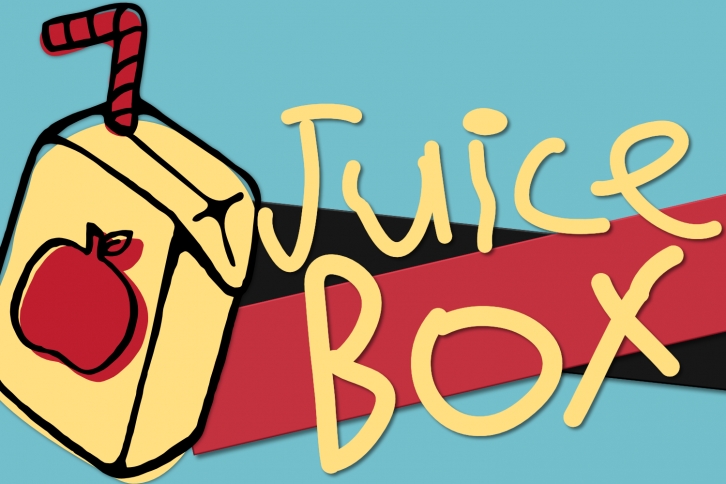
Juice Box - A Kid Drawn Font Download
Juice Box is a great font that was designed by Sugar Bear Studio. Imagine the amount of combinations you can create using this font! The archive is 18.63 MB and it was released on July 11, 2019. Juice Box looks beautiful on wedding invitations, greeting cards, logos, posters, labels, t-shirt designs, logos, business cards and is perfect for use in ink or watercolor works, fashion, magazines, packaging and food menus, children's books and more!